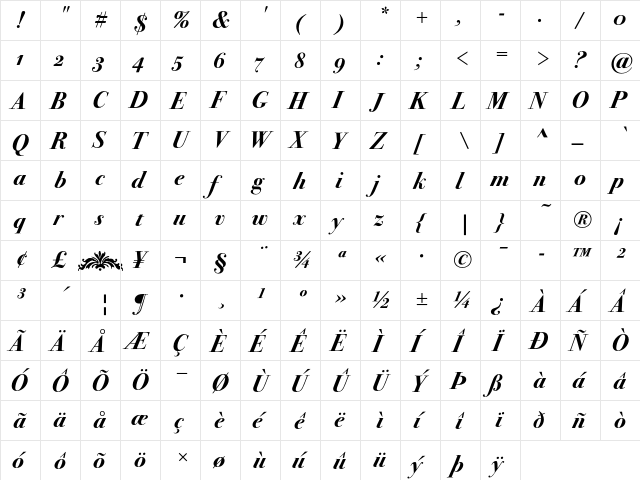
Bodoni Seventytwo ITC Bold Italic OS Font Preview
Design Context for Bodoni Seventytwo ITC Typeface
Bodoni Seventytwo ITC is a composed and adaptable typeface that performs quietly and consistently across a wide range of design contexts. The dynamic lean of this cut emphasises speed and emphasis in any layout. The heavy weight commands attention and anchors typographic hierarchies.
Pro Tip: Try Bodoni Seventytwo ITC for annotation and caption copy alongside an upright companion — the contrast in angle creates a dynamic but ordered typographic system.